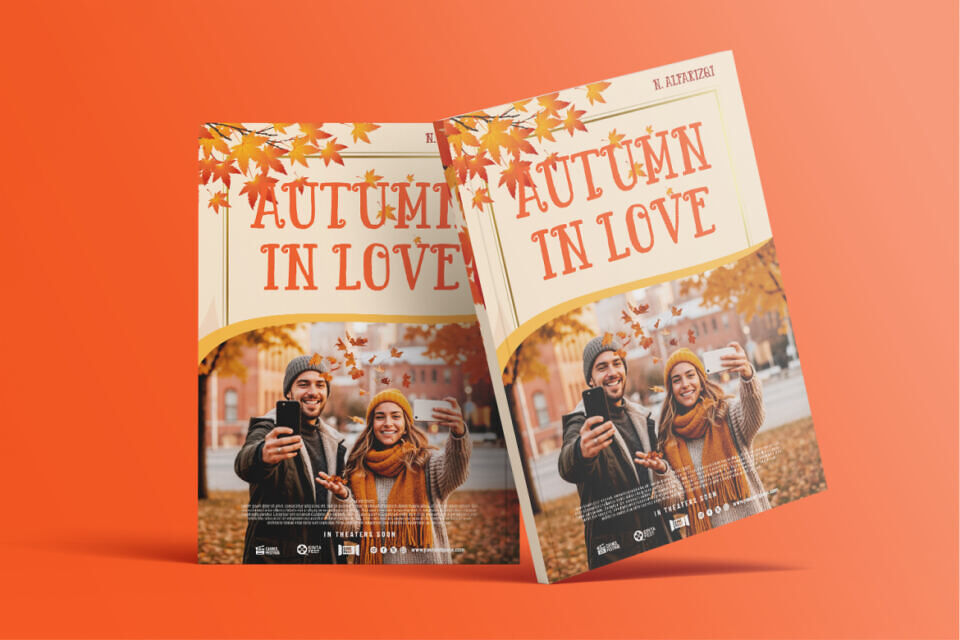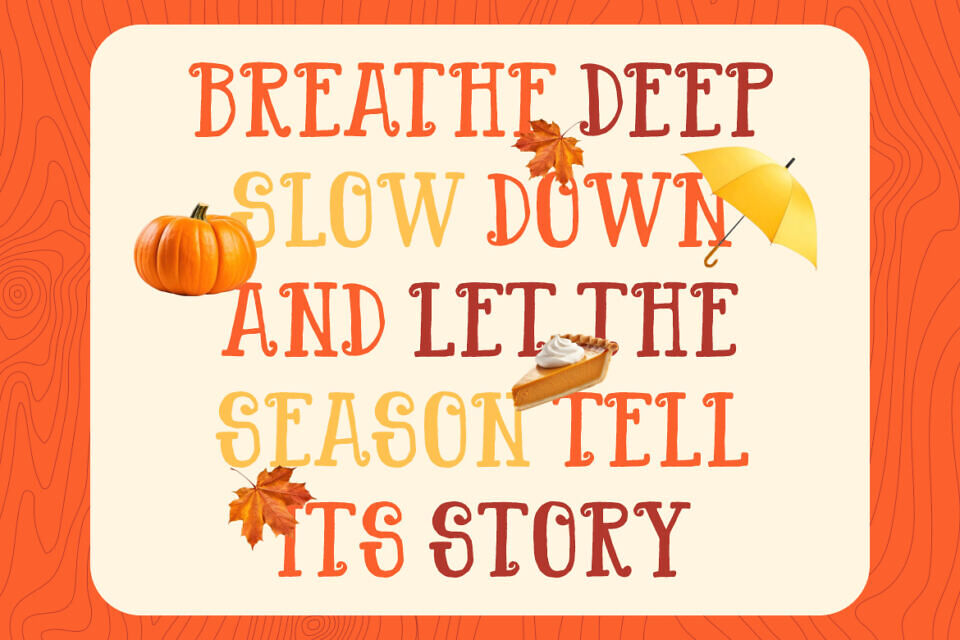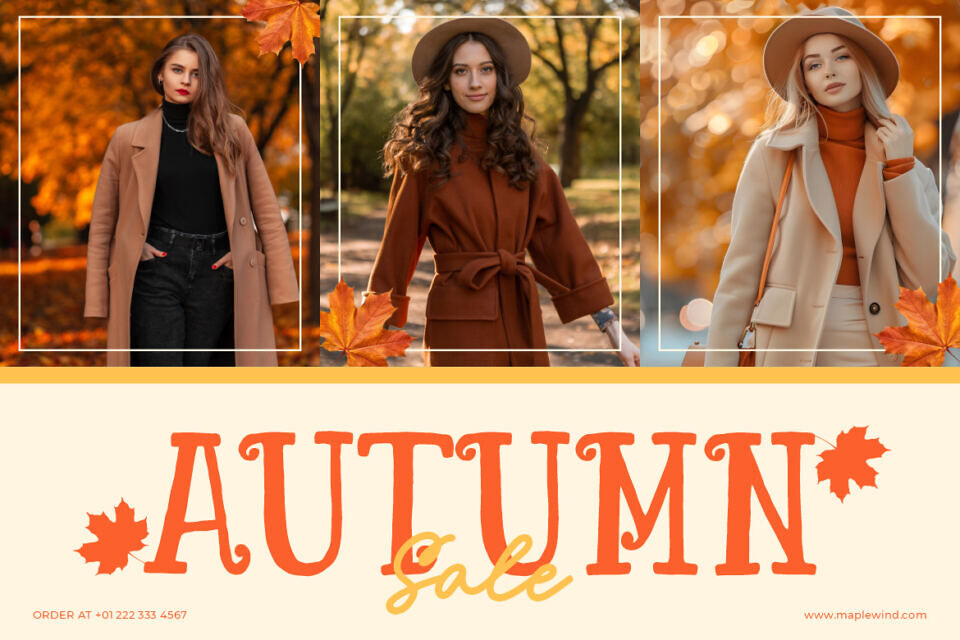
Maple Wind Font
Maple Wind font features a warm, handmade look with uneven strokes and ornamental curls, evoking a cozy autumn feel. Its balanced structure and moderate thickness make it ideal for storytelling, seasonal branding, and design settings.
The font’s organic forms and flowing curves create a friendly tone, while its vintage charm blends with modern display needs. It’s perfect for various uses, from logos to social media graphics, adding warmth and personality to designs.